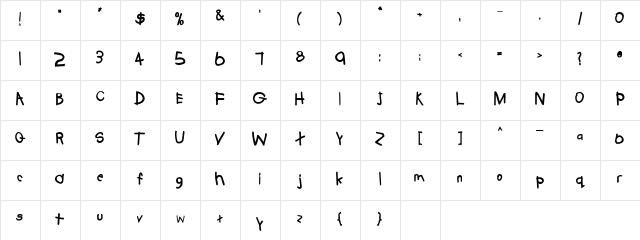
Tabatha Bold
Design Context for Tabatha
Tabatha is a composed and adaptable typeface that performs quietly and consistently across a wide range of design contexts. Its bold stroke weight gives it real presence on the page.